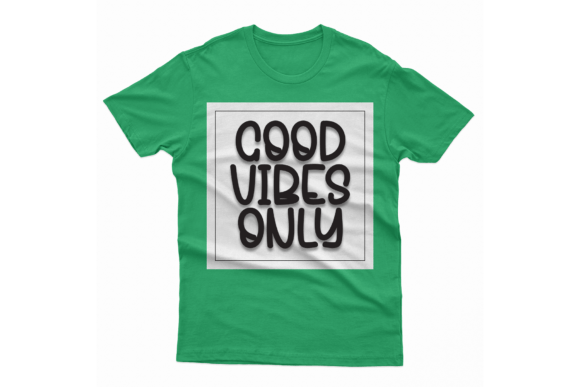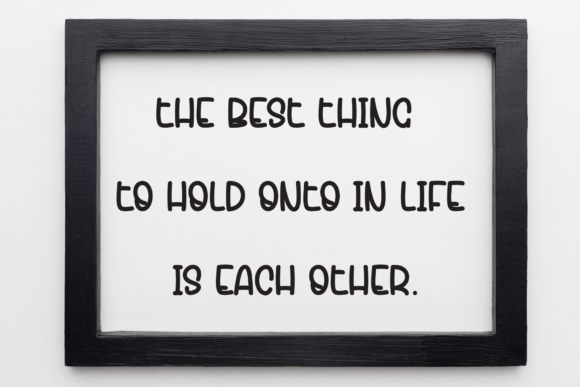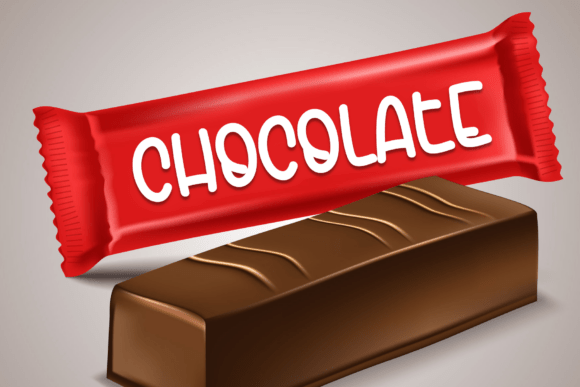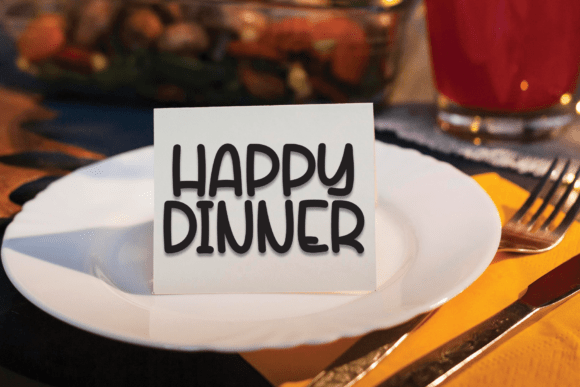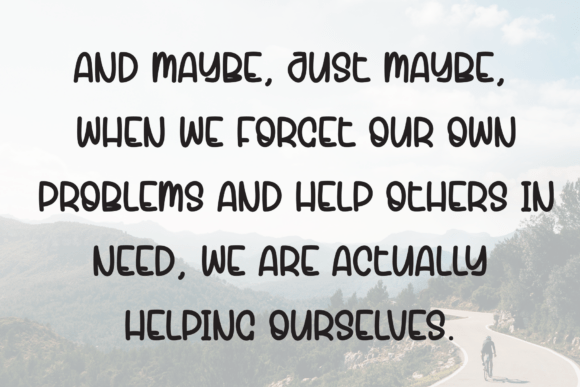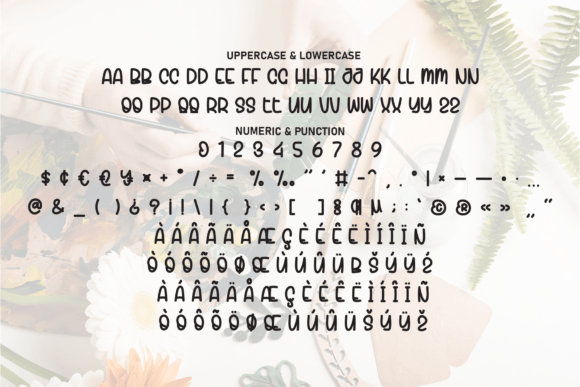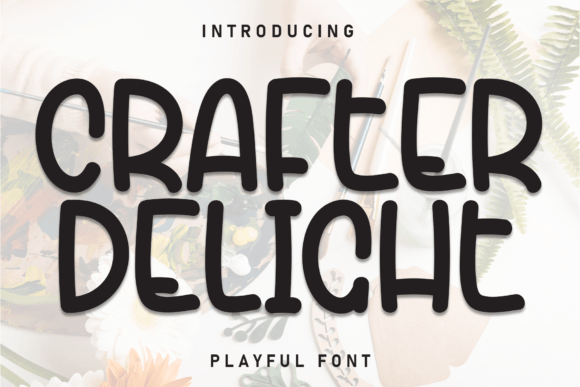
Crafter Delight Font: Elevate Your Designs with a Fresh and Friendly Vibe
In the world of design, fonts play a crucial role in conveying the tone and personality of a project. If you’re a designer or crafter looking for a font that exudes a fresh, friendly vibe, look no further than Crafter Delight. This casual and neat display font is perfect for a variety of applications, from packaging and posters to social media graphics and more.
What is Crafter Delight Font?
Crafter Delight is a carefully crafted display font that boasts clean lines and a relaxed structure. Its approachable design makes it an excellent choice for projects that require a touch of charm and clarity. Whether you’re working on a packaging design, creating a poster, or developing a social media graphic, Crafter Delight is sure to add a polished appearance to your work.
Key Features of Crafter Delight Font
- Clean Lines: Crafter Delight features clean lines that give it a crisp and modern look.
- Relaxed Structure: The font’s relaxed structure adds a touch of casualness, making it perfect for designs that require a friendly vibe.
- Approachable Design: The font’s approachable design makes it easy to read and understand, adding charm and clarity to your projects.
- Polished Appearance: Despite its casual nature, Crafter Delight maintains a polished appearance that’s perfect for a variety of applications.
Use Cases for Crafter Delight Font
Crafter Delight is a versatile font that can be used in a variety of contexts. Here are some use cases to consider:
- Packaging Design: Add a touch of freshness and friendliness to your packaging designs with Crafter Delight.
- Poster Design: Create eye-catching posters that grab attention with Crafter Delight’s clean lines and relaxed structure.
- Social Media Graphics: Elevate your social media graphics with Crafter Delight’s approachable design and polished appearance.
- Branding: Use Crafter Delight as a display font for your brand’s logo or tagline to add a touch of charm and clarity.
Benefits of Using Crafter Delight Font
So, why choose Crafter Delight for your design projects? Here are some benefits to consider:
- Unique Vibe: Crafter Delight offers a unique vibe that’s hard to find in other fonts.
- Easy to Read: The font’s clean lines and relaxed structure make it easy to read and understand.
- Versatile: Crafter Delight can be used in a variety of contexts, from packaging to social media graphics.
- Polished Appearance: The font’s polished appearance ensures that your designs look professional and put-together.
Tips for Using Crafter Delight Font
To get the most out of Crafter Delight, here are some tips to keep in mind:
- Use it as a Display Font: Crafter Delight is perfect for use as a display font, so use it to add emphasis to headings and titles.
- Pair it with Other Fonts: Experiment with pairing Crafter Delight with other fonts to create a unique look.
- Adjust the Size: Play around with different font sizes to find the perfect balance for your design.
Crafter Delight is a fantastic font that offers a fresh, friendly vibe perfect for a variety of design applications. Its clean lines, relaxed structure, and approachable design make it an excellent choice for designers and crafters looking to add a touch of charm and clarity to their projects. With its versatility, ease of use, and polished appearance, Crafter Delight is sure to become a go-to font in your design arsenal.